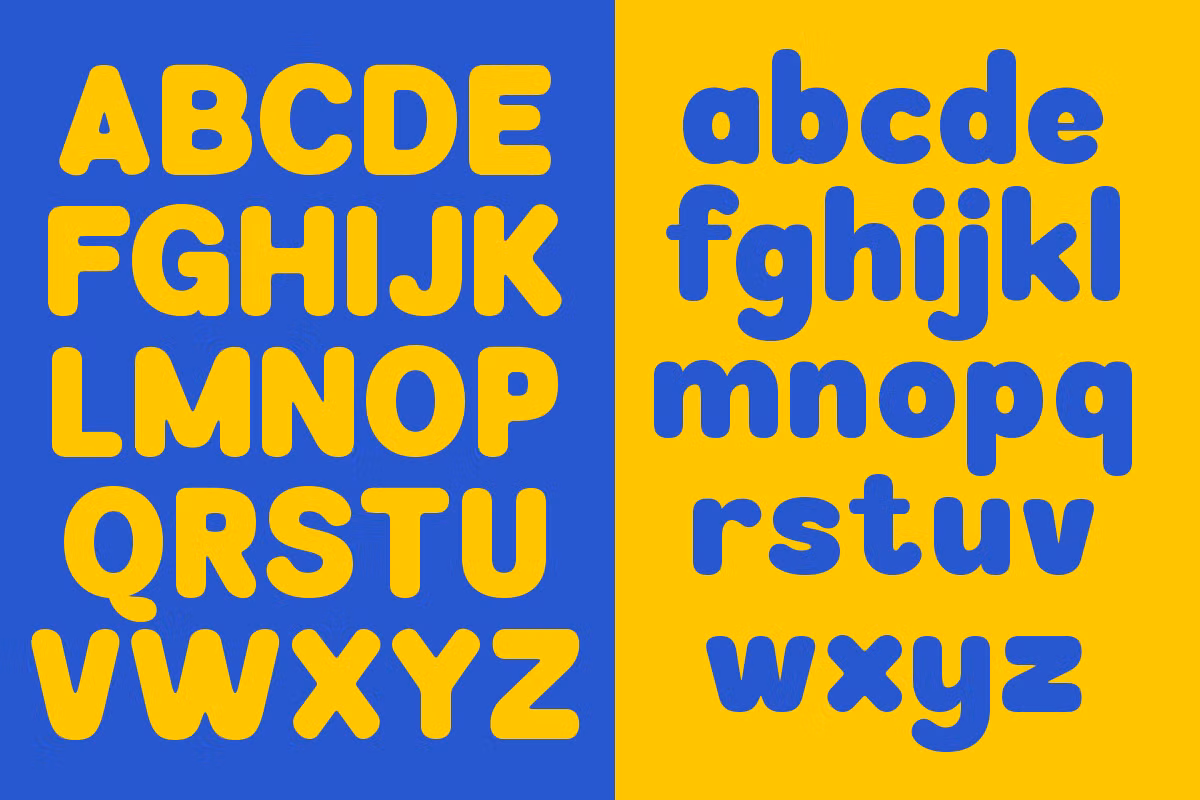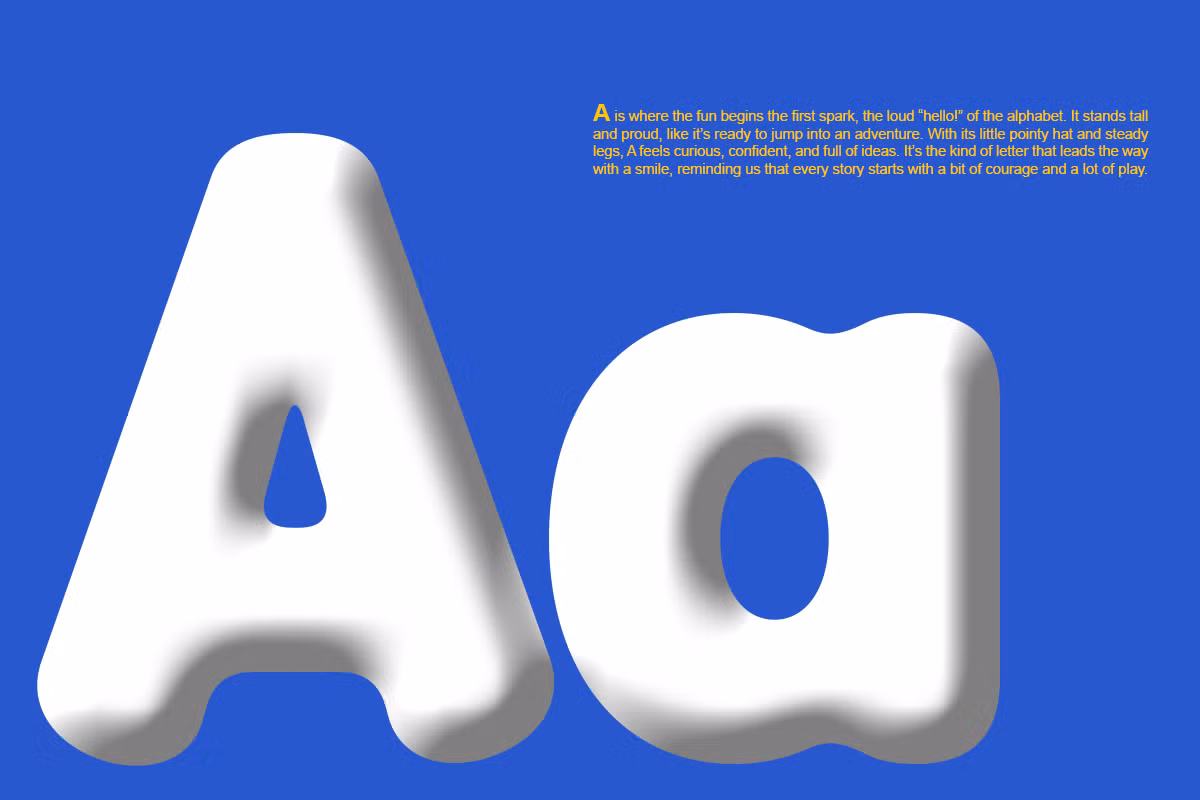
Melloby Playful Rounded Sans Font: Cheerful Typeface for Branding
Introducing Melloby: A Playful Rounded Sans Serif Typeface
Melloby is a lovely, rounded font that can add a lot of character to your work. It’s got soft, curvy lines and a fun, bubbly feel that makes it really stand out. When you use Melloby, you get a bold look that’s still really friendly and approachable. The thick, smooth lines and rounded edges make it perfect for projects where you want to convey a happy, upbeat vibe. Whether you’re working on a brand, a creative project, or just something fun, Melloby is a great choice because it’s so cheerful and engaging. It’s a great way to capture people’s attention and make your design feel more warm and inviting.
Design Style of Melloby
Melloby’s design is really fun and curvy. It’s made up of soft, bubbly shapes that make you feel all warm inside. The ends of the letters are smooth and rounded, which gives it a friendly feel. This makes Melloby perfect for projects that want to seem nice and welcoming. The overall look is pretty inviting, and it’s great for creating a cozy atmosphere. With its playful and rounded construction, Melloby is a great choice for anyone who wants to add a little warmth to their design.
This font has a bold and consistent look that really grabs your attention, making it perfect for headings and important text. The unique way the letters are shaped adds a touch of fun to its personality, so it always stands out. Plus, the space inside each letter is nice and clean, which means you can read it easily – and that’s really important when you’re trying to get a message across through design.
Character Sets and Features
Melloby has a big set of characters, including numbers, punctuation, and lots of symbols. This makes it really useful for many different projects. You can get Melloby in a few different formats, like OTF, TTF, and WOFF, so it works well with different design programs and devices.
Melloby is great for web design because it has special spacing between letters that looks good on screens. This means designers can make content that looks nice and stays that way on different devices and screen sizes. It’s all about paying attention to the little things so that what you create looks good everywhere.
Best Use Cases for Melloby
Melloby shines in various creative applications, making it an invaluable asset for designers. Here are some of the best use cases for this cheerful typeface:
- Children’s Brand Identity Systems: Melloby is perfect for crafting cheerful and memorable identities for children’s brands. Its playful nature resonates well with younger audiences and their parents.
- Toy Packaging and Snack Labels: The friendly and inviting design of Melloby makes it an ideal choice for packaging toys and snacks, creating an immediate connection with consumers.
- Educational Materials: Whether for learning platforms or educational resources, Melloby’s approachable style enhances engagement and encourages a positive learning environment.
- YouTube Thumbnails and Social Media Graphics: In the fast-paced world of digital content, Melloby’s boldness captures attention quickly, making it perfect for thumbnails and social media posts that stand out.
- Event Posters and Invitations: Melloby adds a playful flair to event posters, birthday themes, and party invitations, setting a joyful tone for any celebration.
Pairing Suggestions for Melloby
To maximize the effectiveness of Melloby in your designs, consider pairing it with other typefaces that complement its playful aesthetic. Here are some pairing suggestions:
- Serif Fonts: Pairing Melloby with a clean serif font like Playfair Display can create a beautiful contrast between modernity and tradition. This combination works well for branding and editorial designs.
- Geometric Sans Serifs: Fonts like Montserrat or Raleway can harmonize with Melloby’s rounded forms, creating a cohesive and contemporary look suitable for tech and lifestyle brands.
- Handwritten Fonts: To enhance the playful aspect of Melloby, consider pairing it with a handwritten font like Pacifico. This combination is perfect for casual and friendly designs aimed at a creative audience.
When it comes to your projects, whether they’re personal or for business, Melloby gives you the flexibility to use this lovely font in many different ways. You can use it for almost anything, and that’s what makes it so great. With Melloby, you have the creative freedom to express yourself and bring your ideas to life, no matter what kind of project you’re working on.
Melloby is not just a font, it’s a great tool for designers who want to make their work more fun and friendly. Its rounded shape and big set of characters make it perfect for many different uses, like branding, packaging, and educational materials. You can use Melloby to create happy and engaging designs that people will love. It’s a great choice for designers who want to make their work stand out and be more approachable. With Melloby, you can make your typography more fun and interesting, and it’s easy to download and start using today. Whether you’re working on a new brand, a package design, or an educational project, Melloby is a great font to use. It’s versatile, cheerful, and will make your designs smile.